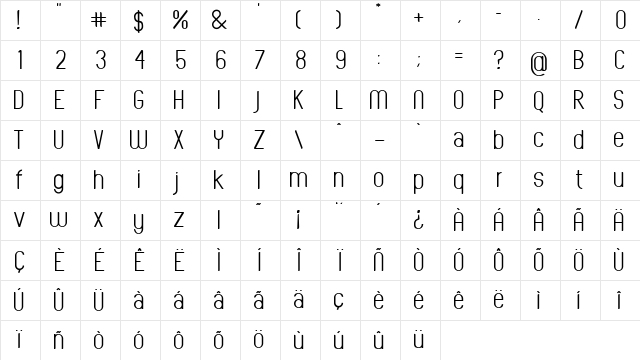
Oval Track Regular
Foundry: PYRS Fontlab Ltd. / Made with FontLab
Designer: Andr￿ Noboru Uenojo
Design Context for Oval Track
Oval Track is a composed and adaptable typeface that performs quietly and consistently across a wide range of design contexts.